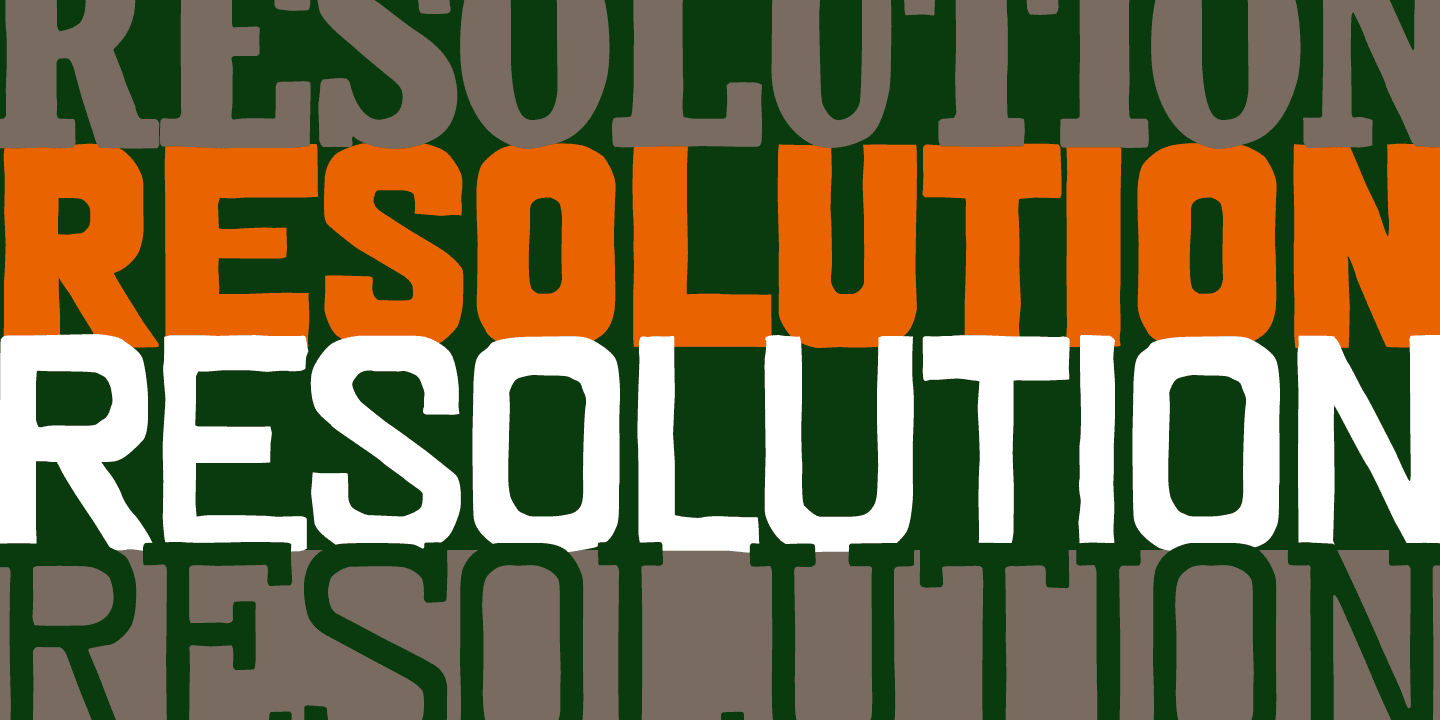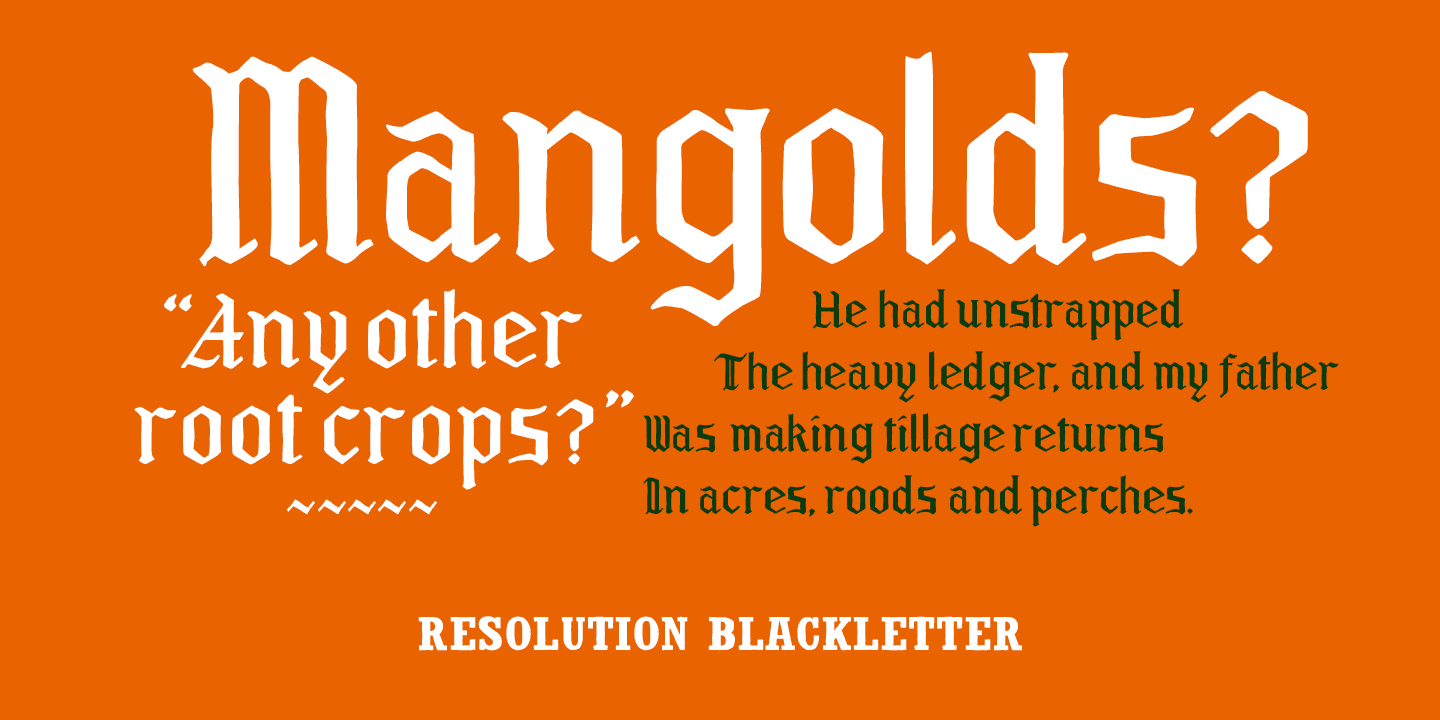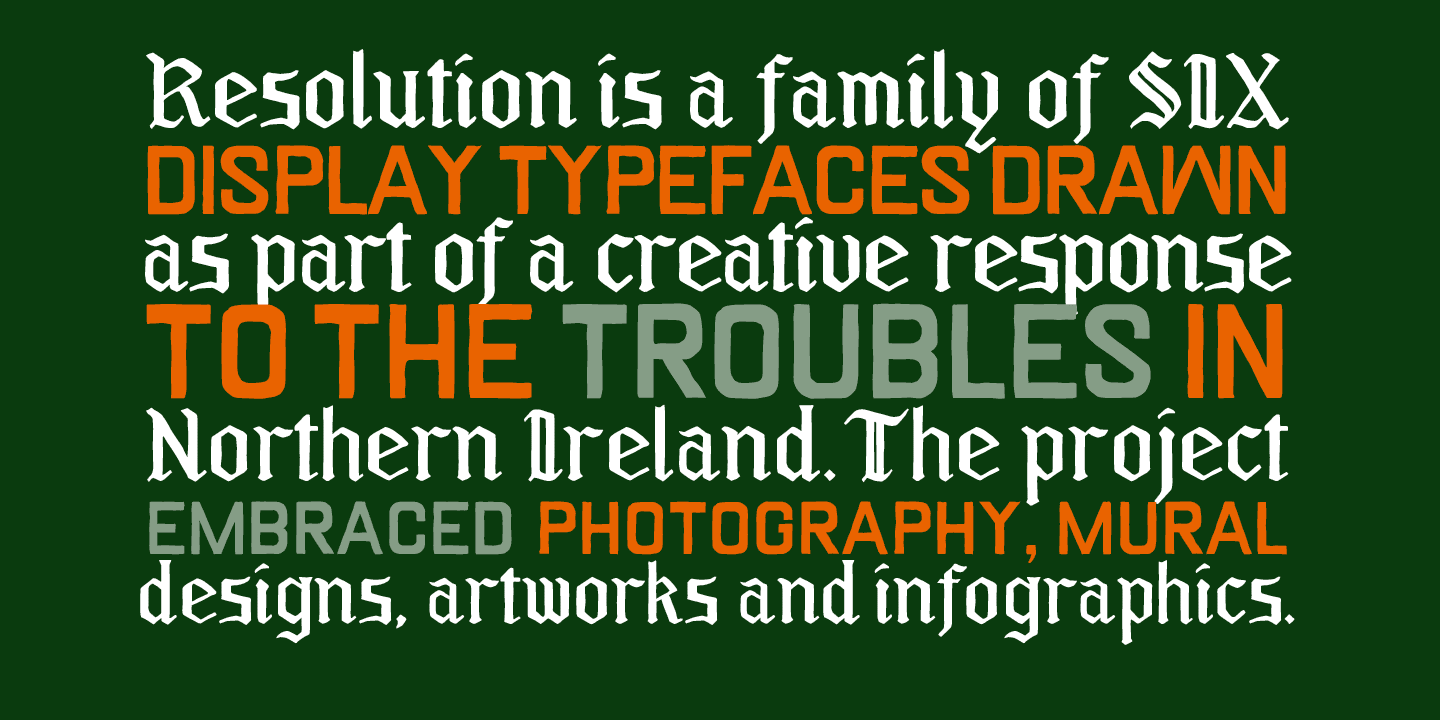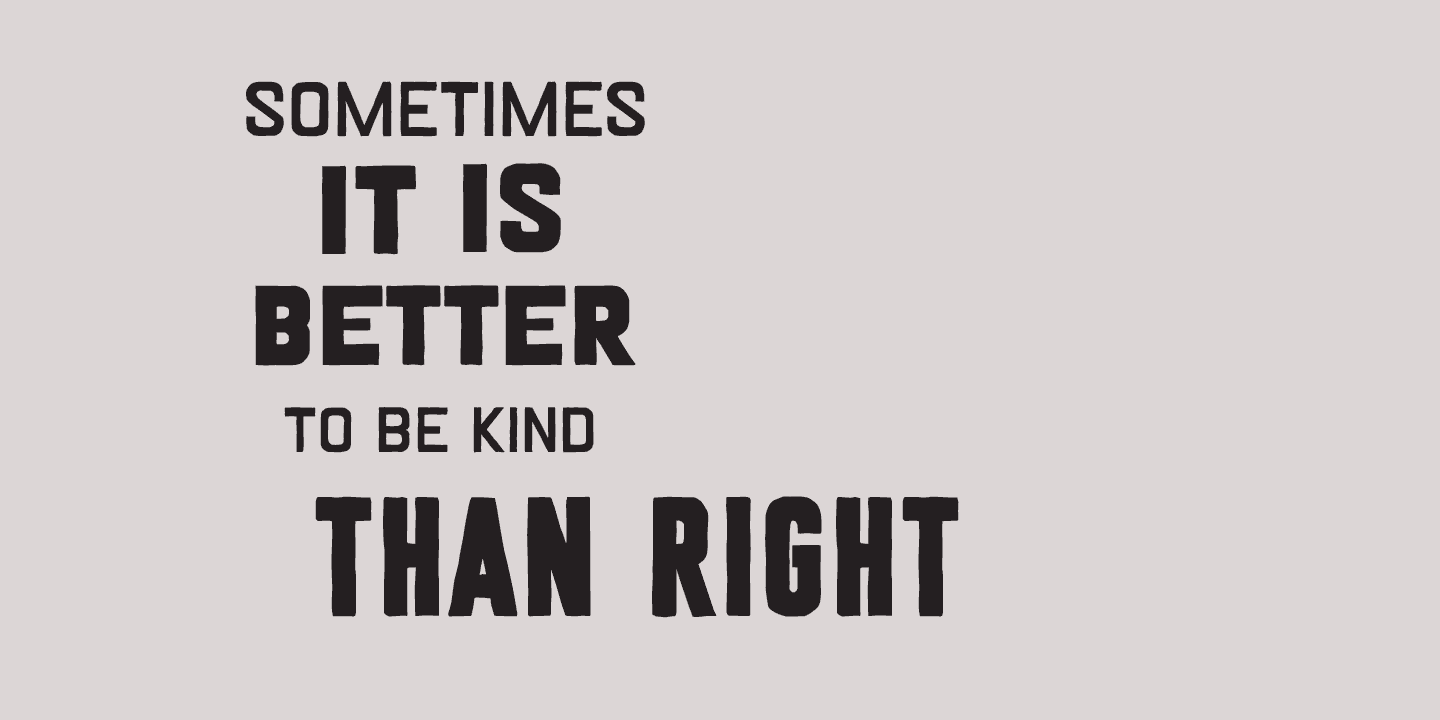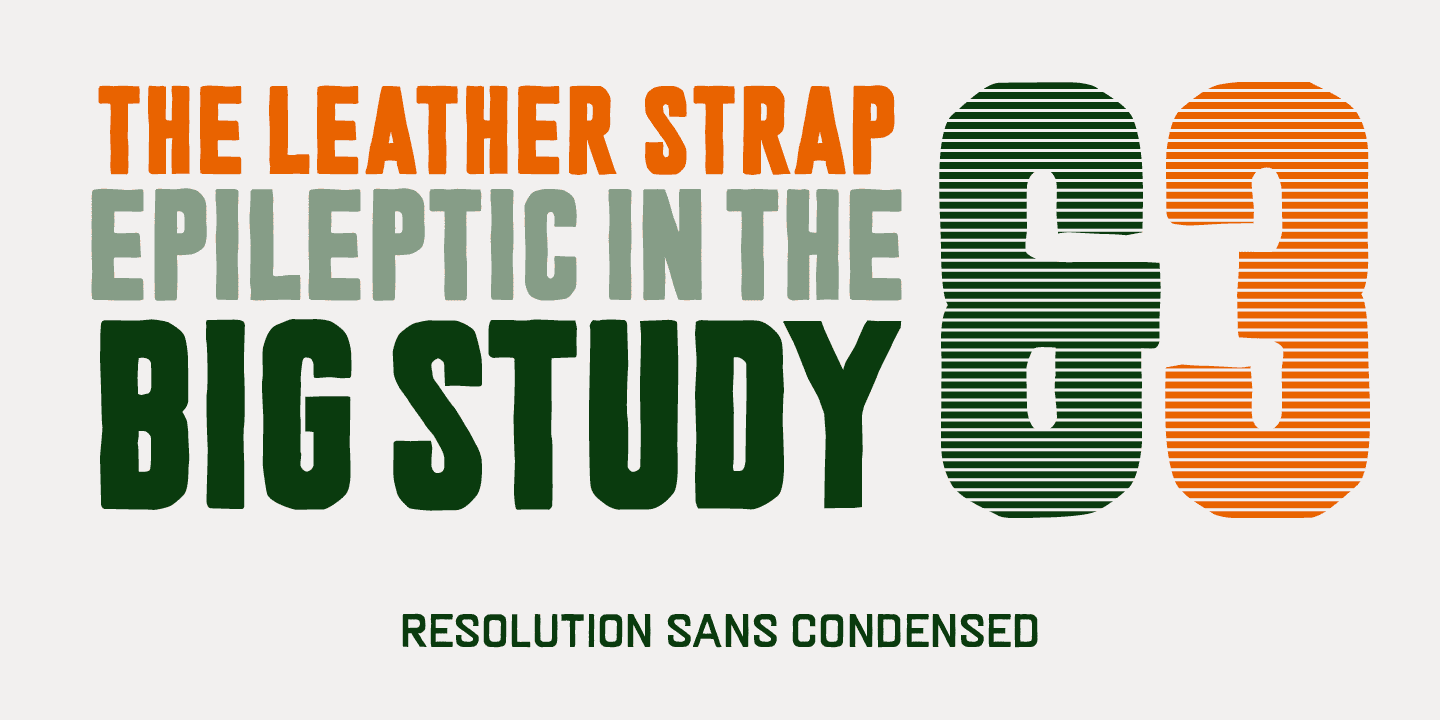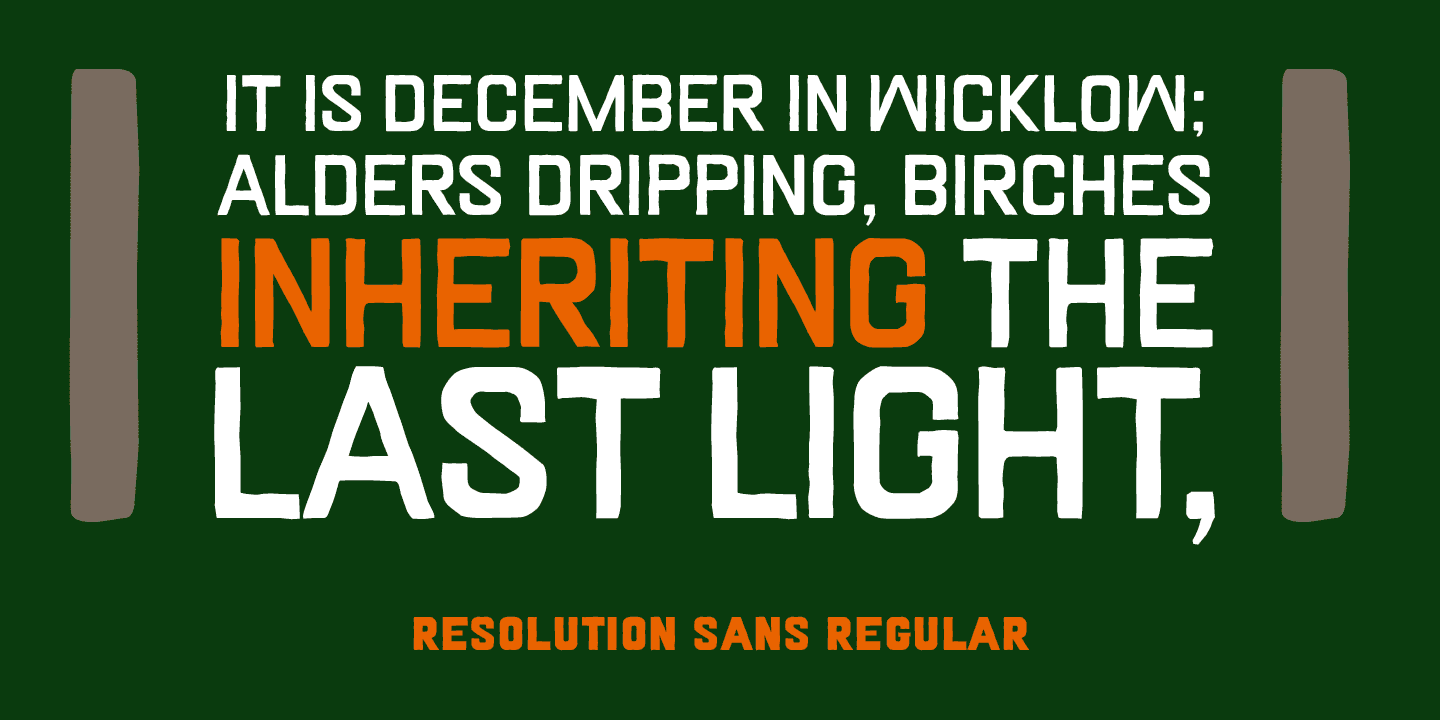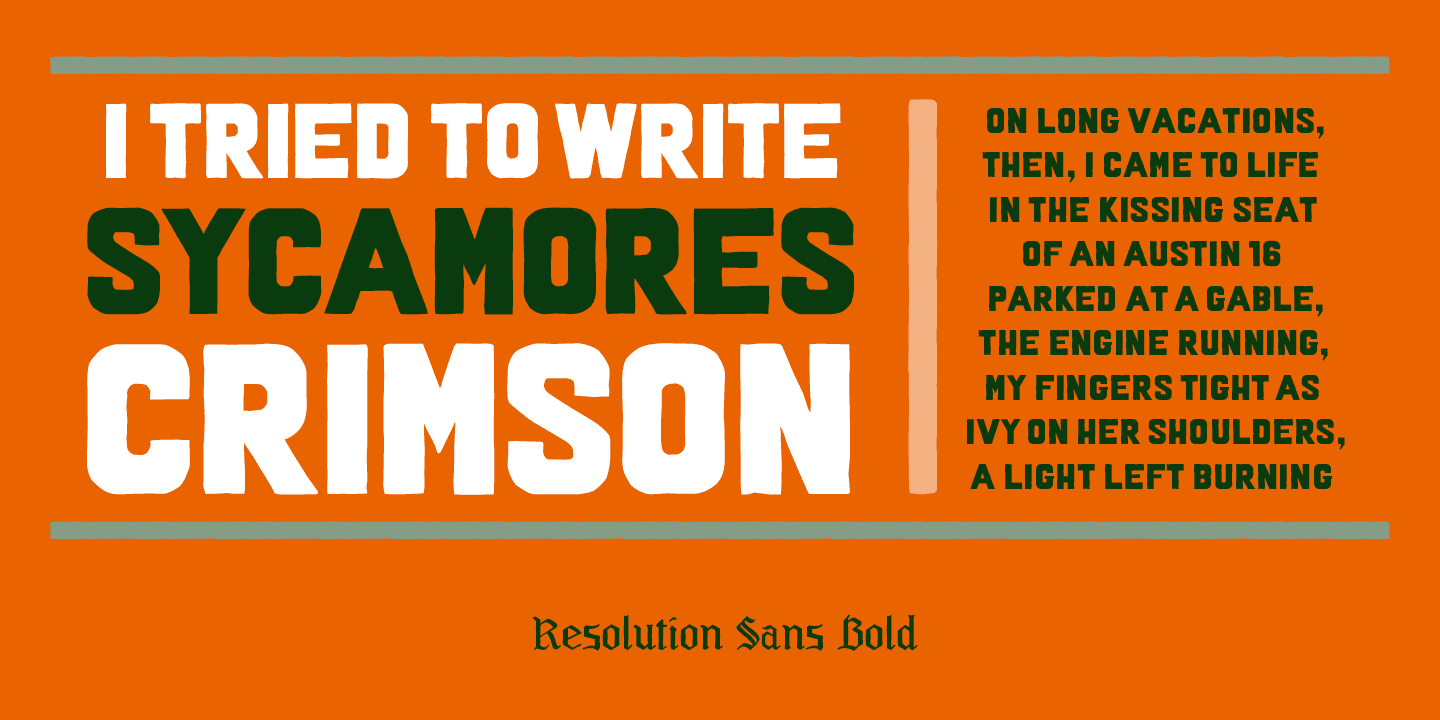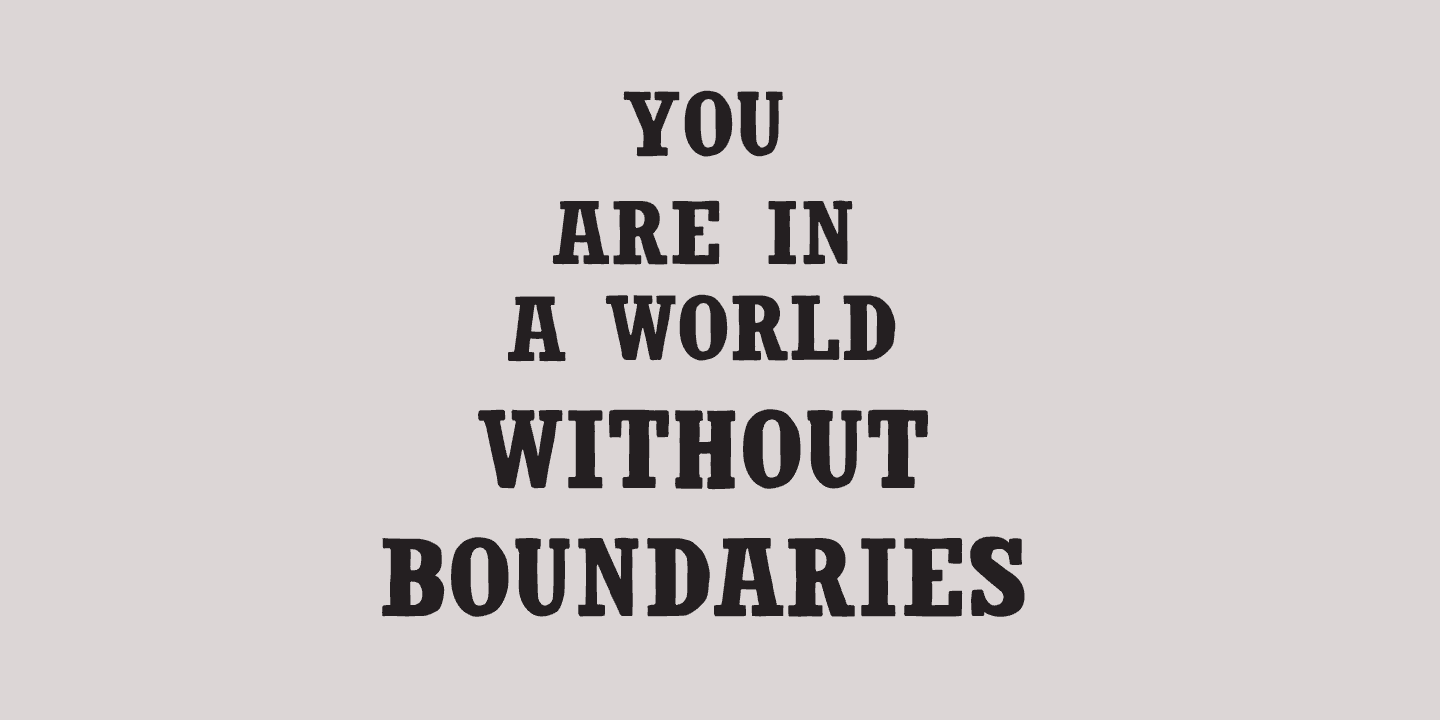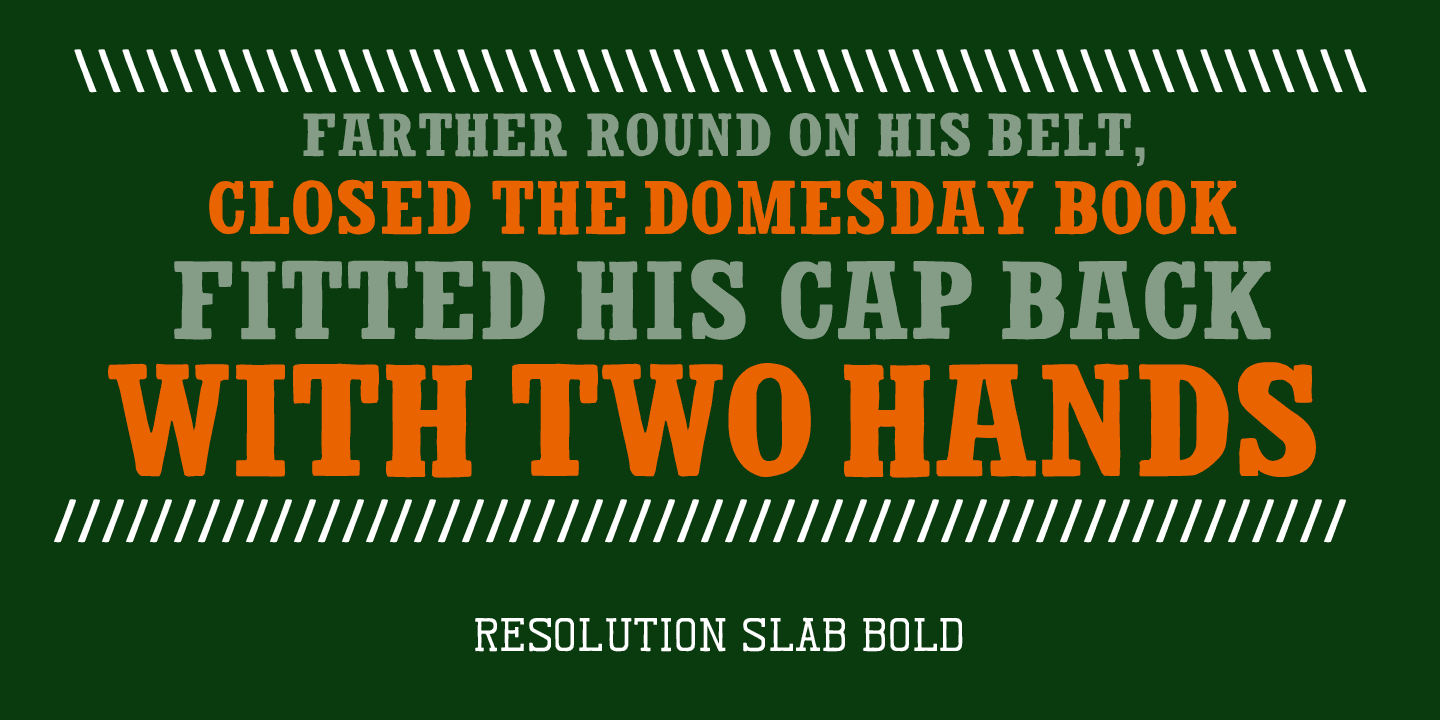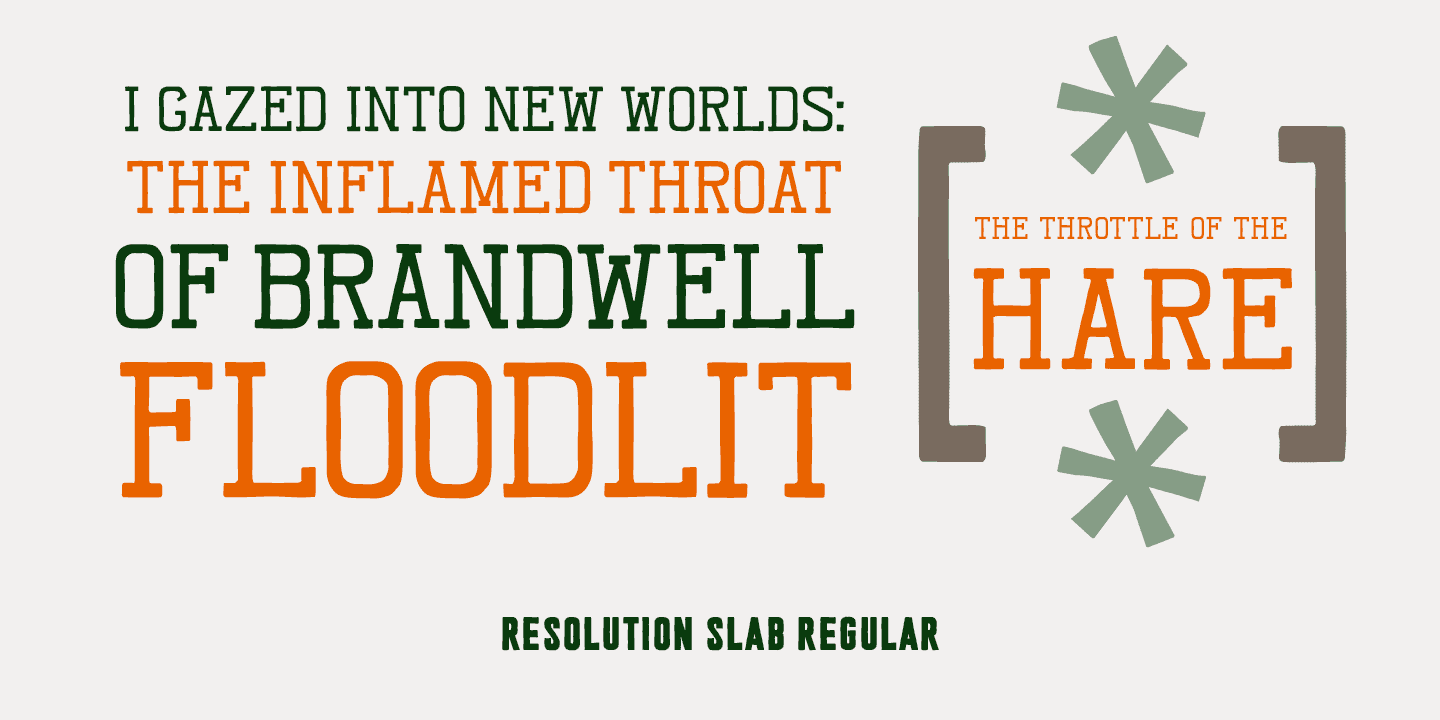
Northern Ireland has a rich history of murals, placed at the heart of communities – not always by choice, that express the political thought of the time in a very direct way. The Resolution typefaces are redrawings of lettering found on some of the most important murals in the region. The unique hand-drawn quality of the letterforms reflect a tradition of mural-painting stretching back many decades.
The family includes six weights across three stylistic variants: Blackletter, Slab and Sans. The blackletter is based on a combination of loyalist and republican murals in Belfast. The sans is primarily drawn from loyalist murals in Belfast. The slab serif originates from one of the most famous typographic murals in the world. The mural, stating ‘You are now entering Free Derry’, was painted onto the side of a house to mark the self-declared autonomous republican area of Derry that existed between 1969 and 1972. The surrounding streets were the scene of the Battle of the Bogside in 1969 and Bloody Sunday in 1972. The house was later demolished, but the wall itself was retained as a free-standing mural. It has been repainted at frequent intervals.